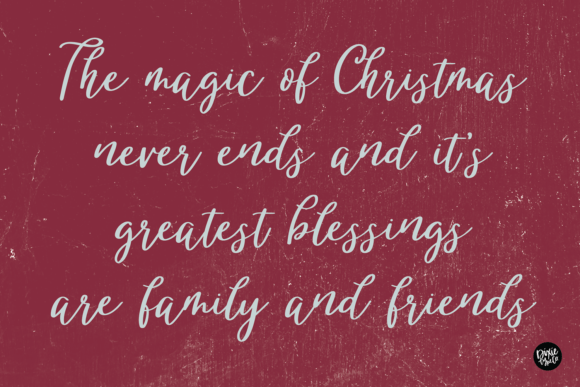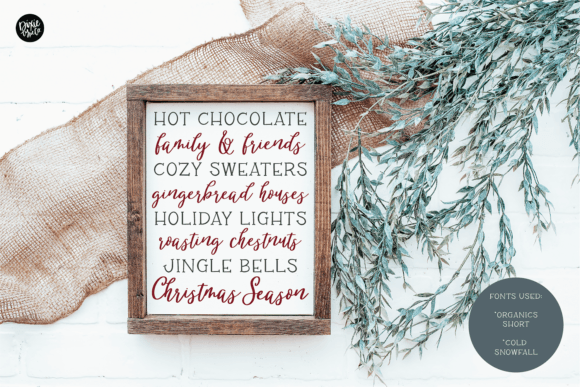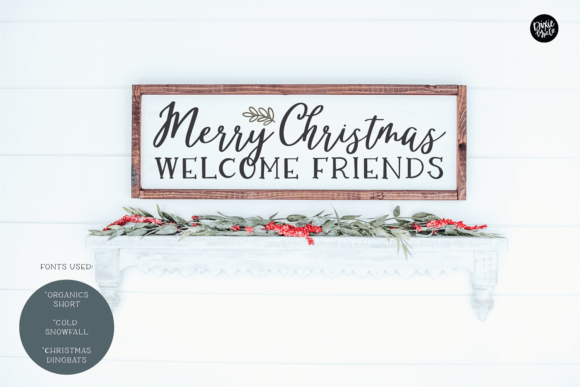
Cold Snowfall Font
“Cold Snowfall” is a pretty winter script font.
Cold Snowfall is a vintage script font. This font is great for holiday decor, cards, and farmhouse living.